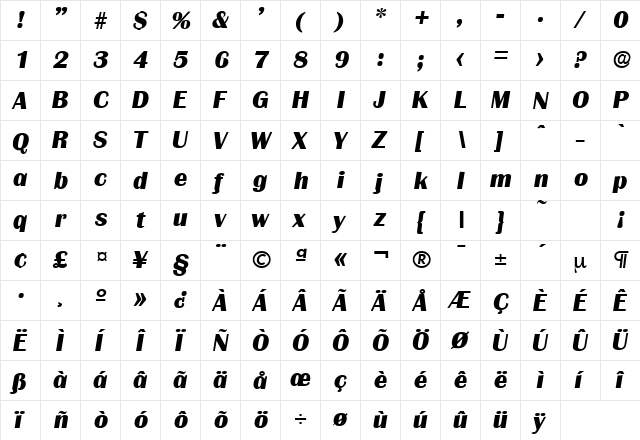
Grenoble-Serial-ExtraBold RegularItalic
Design Context for Grenoble-Serial-ExtraBold Typeface
Grenoble-Serial-ExtraBold is a composed and adaptable typeface that performs quietly and consistently across a wide range of design contexts. The slanted form adds forward momentum and visual energy. The heavy weight commands attention and anchors typographic hierarchies.
Pro Tip: Use Grenoble-Serial-ExtraBold for emphasis, pull quotes, and subheadings where its slanted energy can add rhythm to the layout.